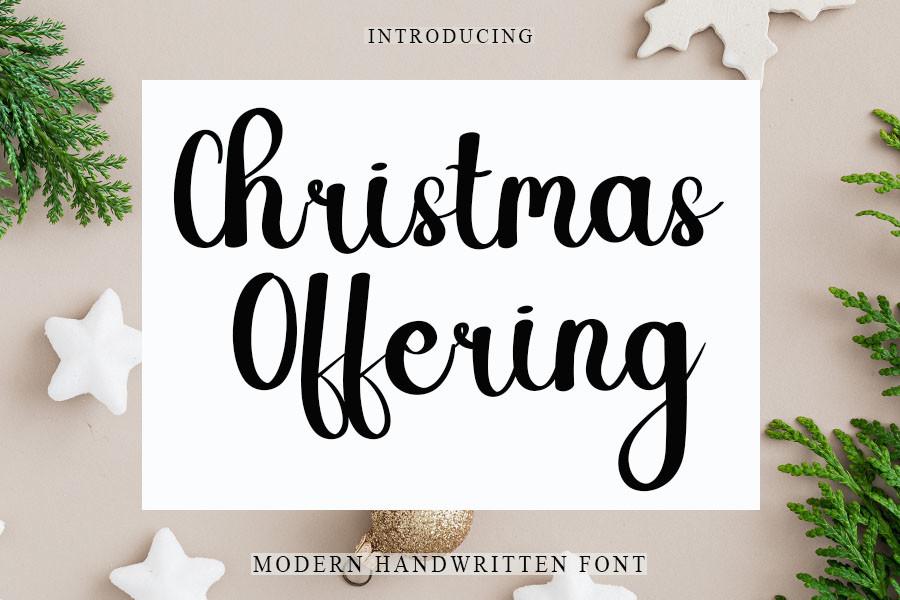
Christmas Offering Font Description
Christmas Offering is an enchanting handwritten font that will impress you with its versatility. It looks impressive on big or small text, formal and informal projects, and it is a truly wonderful addition to any font library.